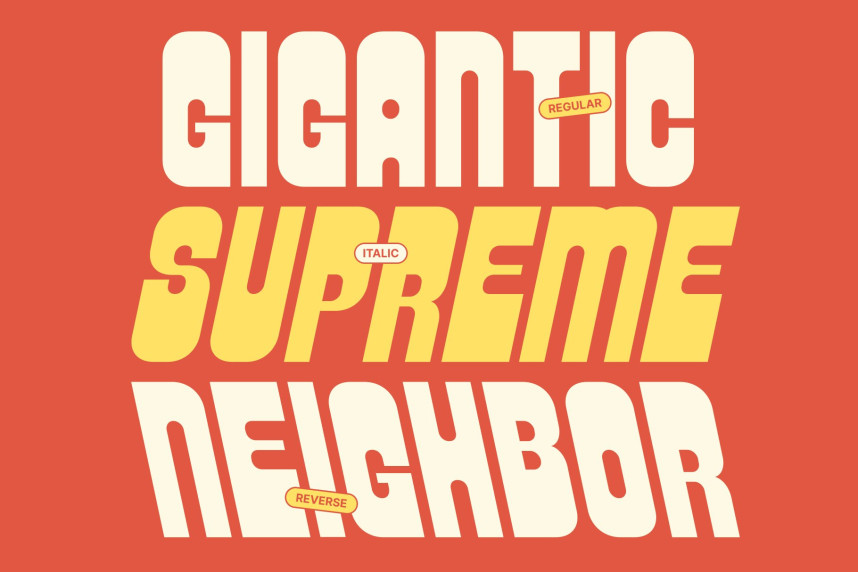
CS Stuart Font
CS Stuart Font – Bold Display Font: Where Friendly Boldness Meets Modern Simplicity
Bold Display Font with Condensed Rounded Style
This is a bold display font featuring condensed, thick, rounded letterforms that create a modern and friendly personality. Its compact proportions maximize visual impact while maintaining a welcoming appearance, making every headline bold, approachable, and instantly eye-catching. The balanced structure ensures clarity even in high-impact display settings.